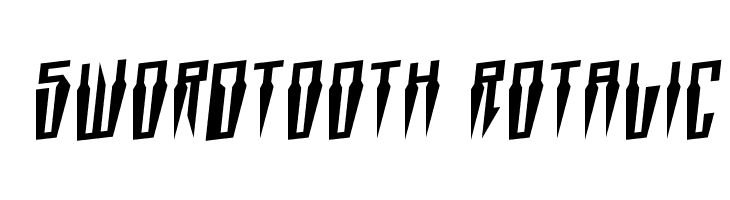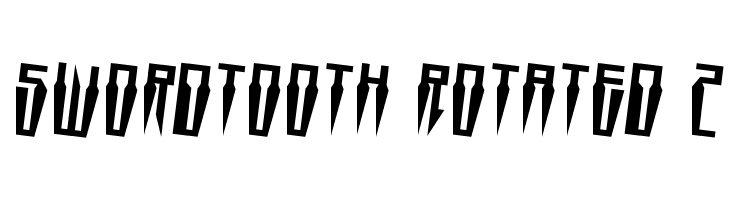
• Swordtooth Rotalic 字体
A bold, angular, and italicized font with sharp edges and high contrast.
• Swordtooth Rotated 字体
A bold, angular font with sharp, sword-like edges for a fierce look.
• Swordtooth Rotated 2 字体
A bold, angular font with sharp, blade-like edges and a geometric style.
• Swordtooth Semi-Italic 字体
A bold, angular font with sharp edges and a semi-italicized style.
• Swordtooth Squat 字体
A bold, angular font with sharp, blade-like edges for a modern, edgy look.
• Swordtooth Squat Italic 字体
Bold, angular, and italicized font with a modern, edgy style.
• Swordtooth Super-Italic 字体
A bold, angular font with sharp serifs and a dynamic, slanted style.
• Swordtooth Title 字体
A bold, angular font with sharp, blade-like edges and a strong geometric influence.
• Swordtooth Title Italic 字体
A sharp, italic font with bold, angular characters and a dynamic style.
• Swordtooth Warped 字体
A bold, angular font with a sharp, warped design for a fierce look.